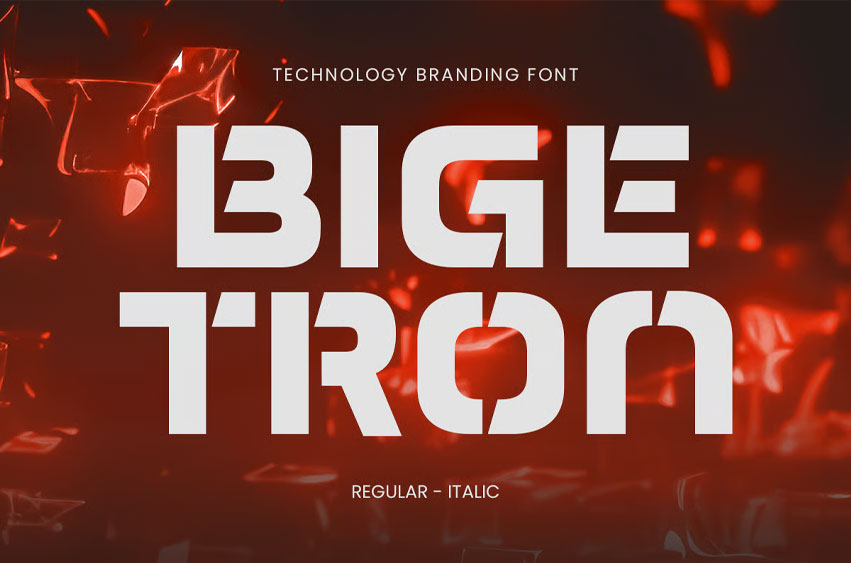
Bigetron Font is a technology branding font crafted to give your tech brand a strong, bold presence. With its modern, sleek lines and geometric precision, BIGETRON is perfect for tech companies, digital platforms, and any brand that wants to convey innovation and professionalism.
This font offers a clean, high-tech design, making it the perfect choice for digital products, logos, tech startups, and online services. Its sharp, modern aesthetic ensures your brand stands out in the crowded tech market while maintaining clarity and impact in both print and digital environments.
BIGETRON – Technology Branding Font Features
- Bold and modern technology-inspired letterforms
- Ideal for tech logos, digital branding, and web design
- Includes uppercase, lowercase, numerals, and punctuation
- Sleek, clean, and professional design
- OpenType features for advanced typographic styling
Give your tech brand a powerful identity with BIGETRON – the ultimate font for modern technology branding.